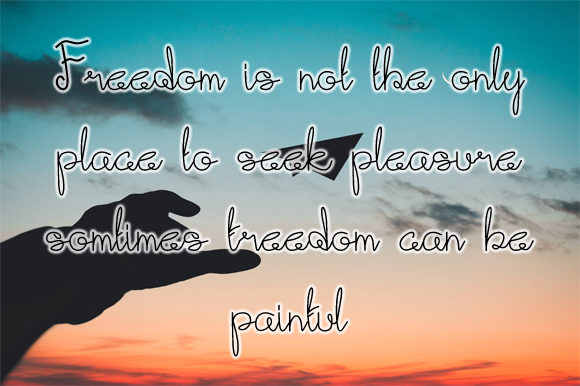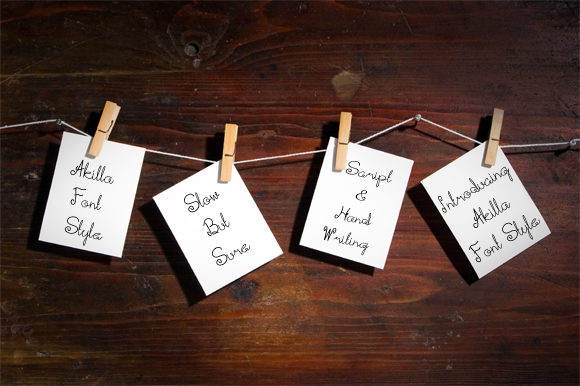
Akilla Font
About Akilla Font
The Akilla is an elegant Latin font. It’s suitable for quotes but can also be used for business cards, book titles, and film covers.